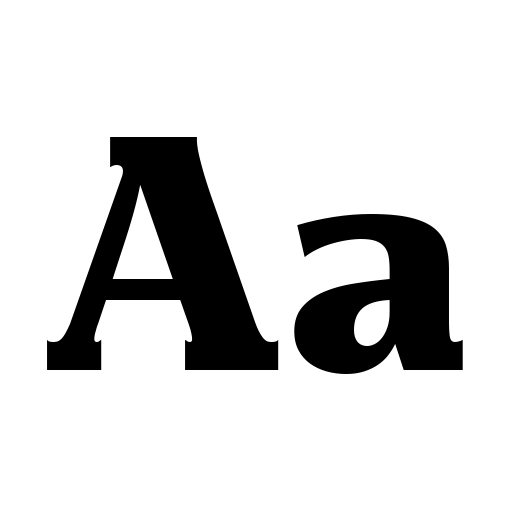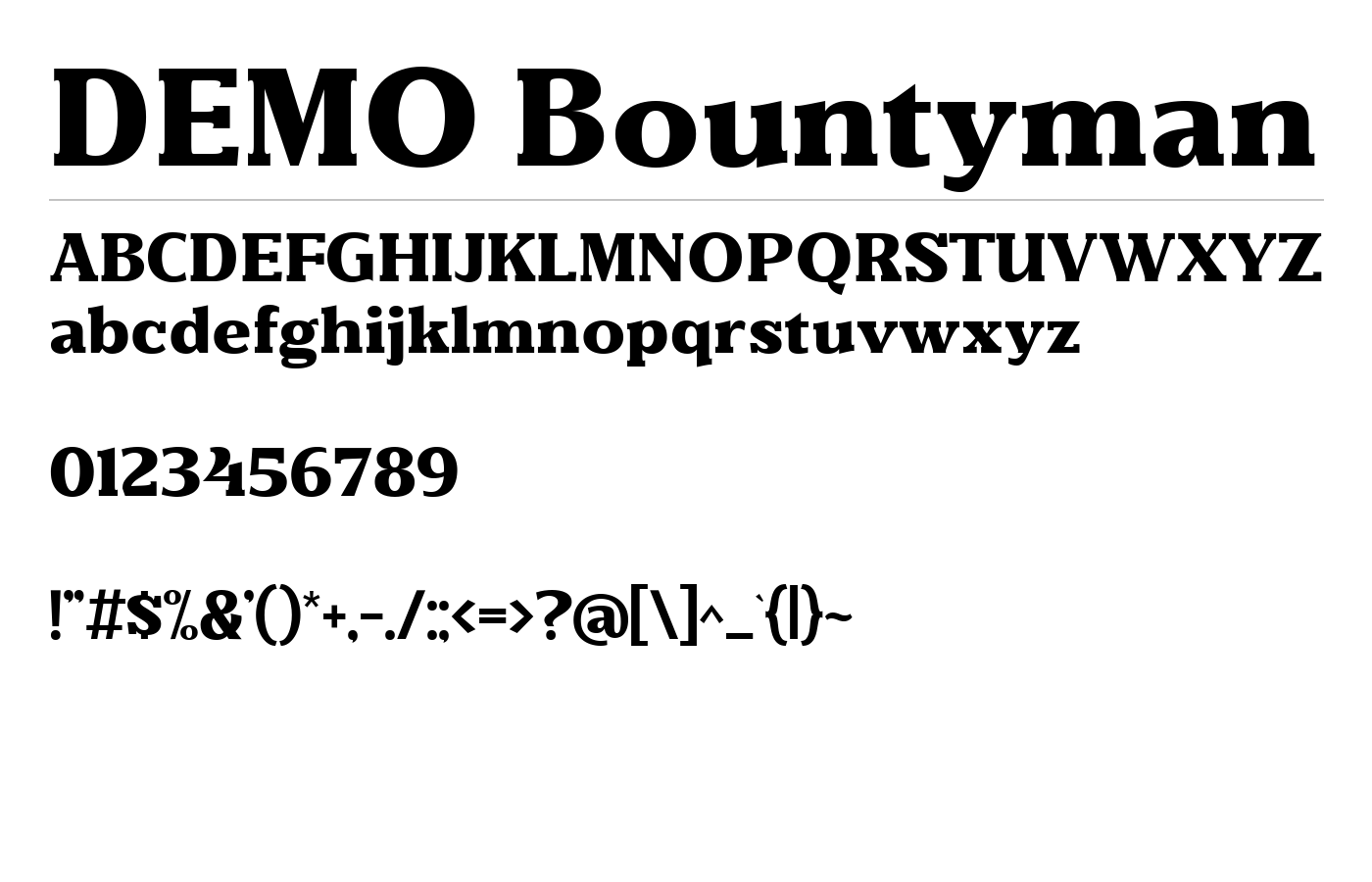
DEMO Bountyman is a bold slab serif font with strong, sturdy letterforms and bracketed serifs that give it a classic yet impactful presence. Its high contrast between thick and thin strokes combined with a relatively large x-height makes it highly legible, ideal for headlines, branding, and editorial uses where a confident, traditional look is desired. This font communicates solidity and professionalism, making it perfect for luxury packaging, formal print materials, and sophisticated logos.
DEMO Bountyman Font
About DEMO Bountyman Font